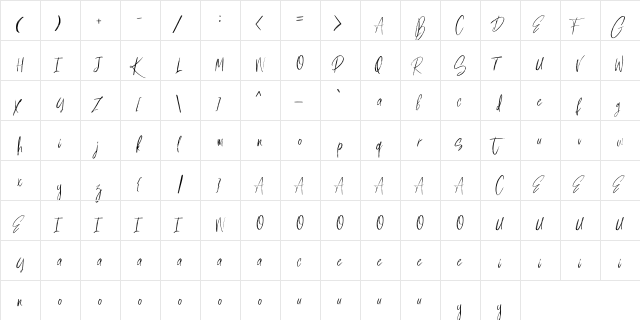
Milles handwriting Demo Regular
Design Context for Milles handwriting Demo Typeface
Milles handwriting Demo flows with the natural rhythm of handwritten lettering, making it ideal for designs that call for warmth and personal expression.
Font Pairing: Combine Milles handwriting Demo with a simple geometric sans for maximum contrast — the tension between flowing curves and clean structure is a classic typographic pairing.
Pro Tip: Use Milles handwriting Demo for short runs of text — names, titles, or taglines. Extended body copy in script faces tires the eye quickly.